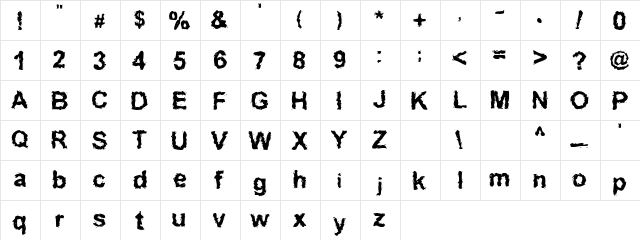
Rock N Roll Regular
Design Context for Rock N Roll Typeface
Rock N Roll takes a measured approach to typography — its balanced proportions and neutral character make it a reliable workhorse for both digital and print work.
Pro Tip: Use Rock N Roll in both headline and body roles to test its range before committing to a single application.